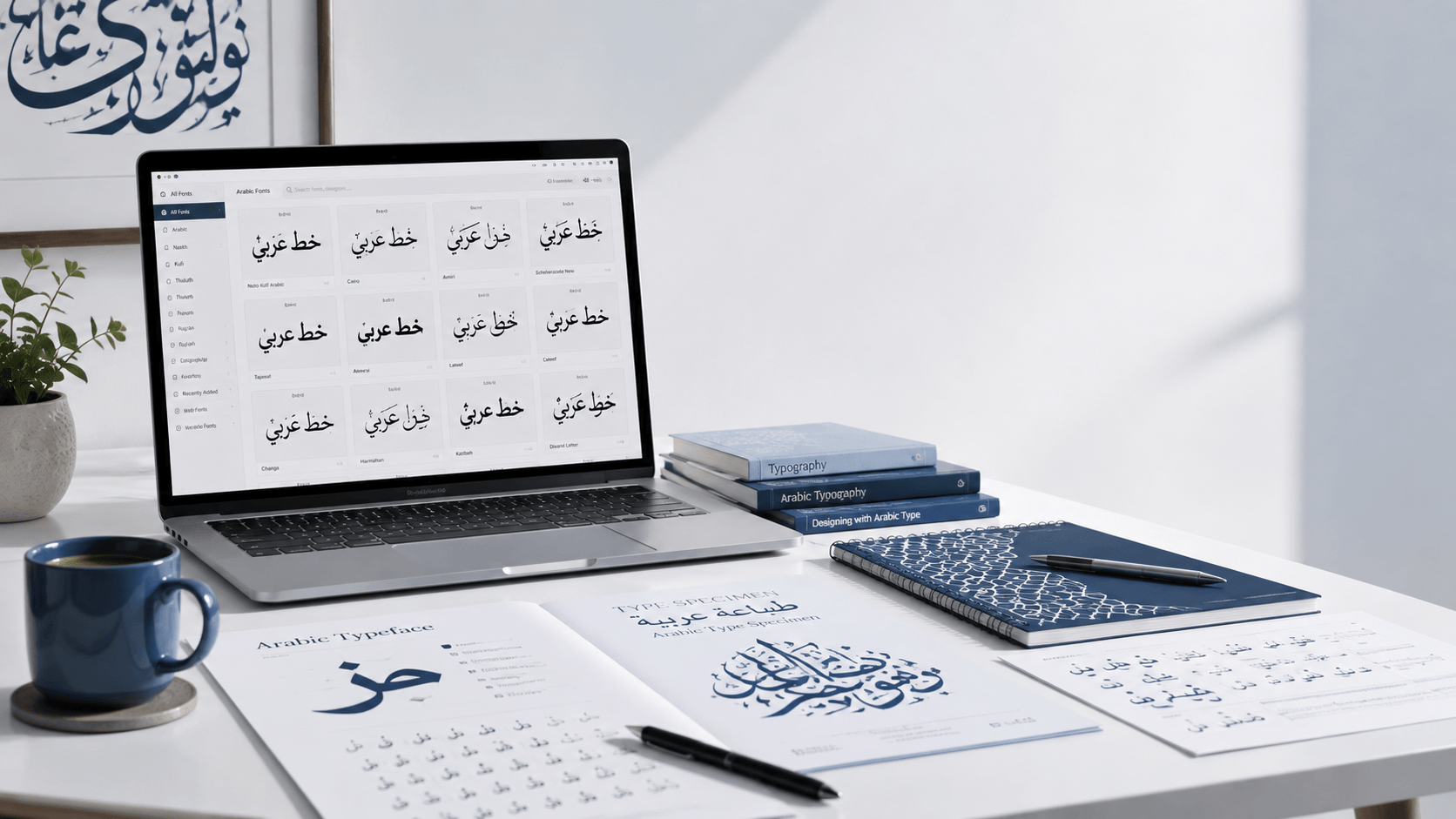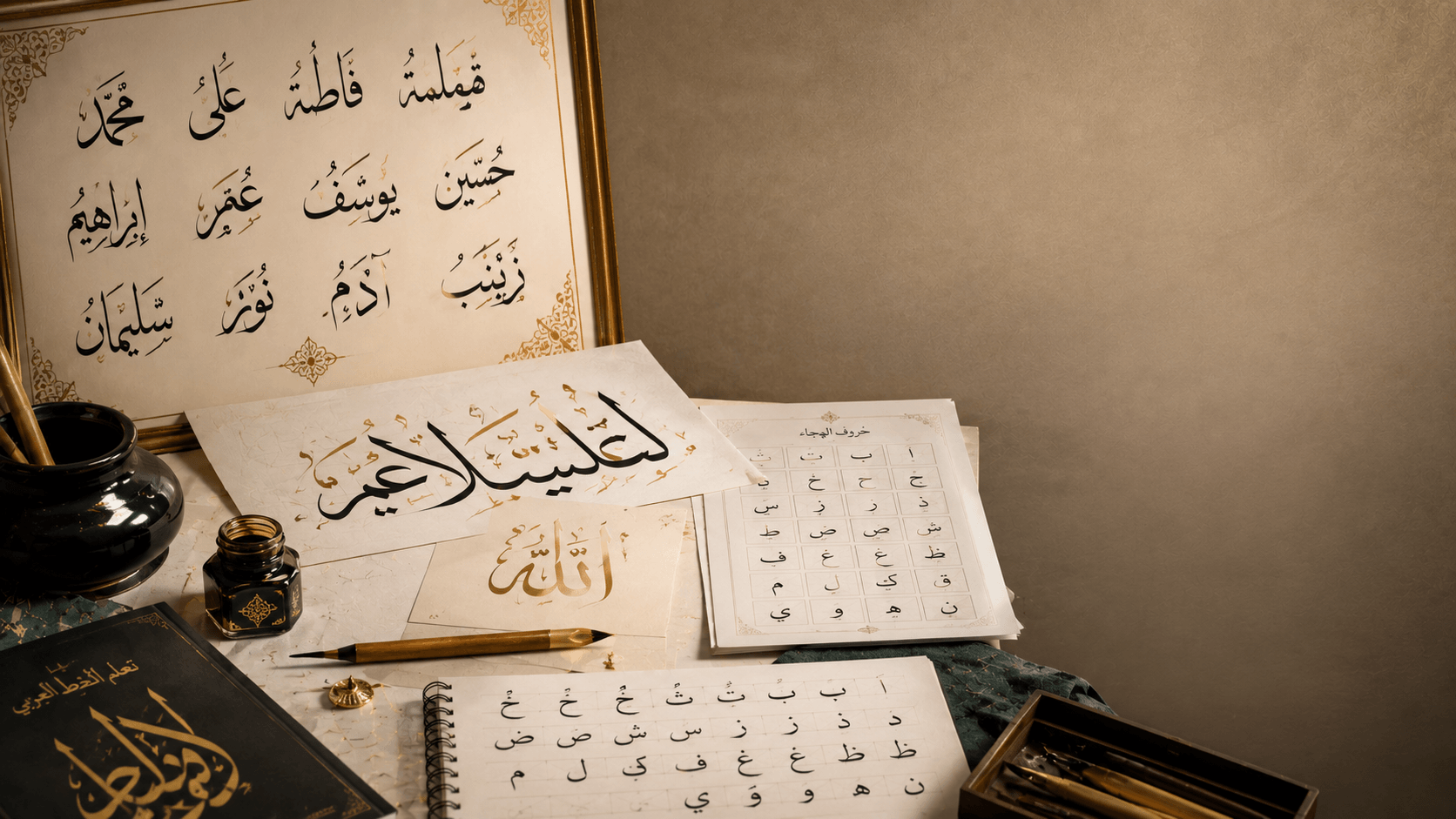
Arabic Calligraphy Styles Explained: Naskh, Kufic, Thuluth, Diwani & More
Arabic calligraphy isn't one script — it's a family of distinct writing styles, each shaped by a different era, purpose, and region. If you've ever browsed a font list and wondered why some letters look sharp and geometric while others flow like ribbon, you're seeing the difference between calligraphy traditions that are centuries apart. This guide breaks down the six major styles you'll actually encounter when choosing an Arabic font, in plain language, with practical notes on where each one works best.
Naskh: the readable workhorse
Naskh is the style most people picture when they think of "standard" Arabic text. Developed for legibility, it features rounded letterforms, consistent spacing, and short vertical strokes — which is exactly why it became the preferred script for copying the Qur'an, printing books, and setting newspaper body text. If your project needs long passages of Arabic to actually be read comfortably (an article, an ebook, a product description), Naskh-based fonts like Amiri or Noto Naskh Arabic are almost always the right call.
Best for: body text, long-form reading, formal documents, religious texts.
Kufic: the geometric original
Kufic predates Naskh by centuries and looks it — thick, angular, and built on straight lines and sharp angles rather than curves. It was the script of early Qur'anic manuscripts and Islamic architecture, which is why you still see Kufic-style lettering carved into mosque walls and coins. Modern Kufic-inspired webfonts (Reem Kufi is a popular example) strip the letterforms down to bold geometric shapes, making them a strong choice for logos, headings, and anything that needs to look monumental rather than readable at length.
Best for: logos, headings, architectural or heritage-themed branding, short display text.
Thuluth: large, ornamental, ceremonial
Thuluth ("one-third," referring to the slant ratio of its strokes) is the most decorative of the classical scripts — tall ascenders, deep curves, and letters that interlock and overlap in ways that reward slow reading. Historically it was reserved for titles, chapter headings, and monumental inscriptions rather than everyday writing, precisely because it's slower to write and read than Naskh. Today it's the style you reach for when a design needs to feel formal, ceremonial, or prestigious — think certificates, wedding invitations, or a single striking headline.
Best for: titles, certificates, wedding invitations, single-word or short-phrase display pieces.
Ruq'ah: fast, simple, everyday
Ruq'ah is the handwriting style — simplified, quick to write, with minimal decoration and short strokes. It developed as a practical script for everyday correspondence and note-taking across the Ottoman era and is still what many native Arabic speakers use for casual handwriting today. In digital design, Ruq'ah-style fonts read as informal and personal, useful when you want Arabic text to feel handwritten rather than typeset.
Best for: personal notes, informal branding, handwritten-style social content.
Diwani: the ornamental court script
Diwani emerged in the Ottoman chancery for royal decrees — highly cursive, densely decorated, with letters that stack and curve in tightly interwoven compositions. It was partly designed to be difficult to forge, which is part of why it looks so elaborate. Genuine Diwani is rare in webfont form because its flourishes don't simplify well into a standard character set, but it remains a benchmark for what maximalist Arabic ornamentation looks like — useful to know even if you end up substituting a Thuluth-based font for a similar ceremonial effect.
Best for: historical or ceremonial reference pieces, museum and heritage contexts.
Farisi (Nasta'liq): the hanging script
Nasta'liq — also called Farisi — developed in Persian-speaking regions and is immediately recognizable by its diagonal, "hanging" baseline: words slope down and to the left rather than sitting on a flat line. It's the standard script for Persian and Urdu poetry and remains widely used across South Asian Arabic-script typography. If your audience or content connects to Persian, Urdu, or South Asian design traditions, a Nasta'liq-style font like Mirza or Gulzar will feel authentic in a way a Naskh font won't.
Best for: Persian and Urdu content, poetry, South Asian design contexts.
Choosing between them
In practice, the decision usually comes down to two questions: how much text are you setting, and what feeling does the piece need? Long text needs Naskh's readability. Short, high-impact text — a logo, a single word, a title — has room for Kufic's geometry or Thuluth's ornamentation. If you're not sure, our Arabic calligraphy generator lets you type your own text and preview it instantly across all six categories, so you can compare styles side by side before committing to one.
Which Arabic calligraphy style is best for a logo?
Kufic and Thuluth are the most popular choices for logos. Kufic gives a bold, geometric, modern feel; Thuluth gives a more ornamental, prestigious feel. Both work best at large sizes with short text.
Is Diwani script available as a digital font?
True Diwani is rare as a webfont because its dense, interwoven flourishes don't simplify well into a standard character set. Thuluth-based fonts are the closest widely available substitute for a similar ceremonial look.